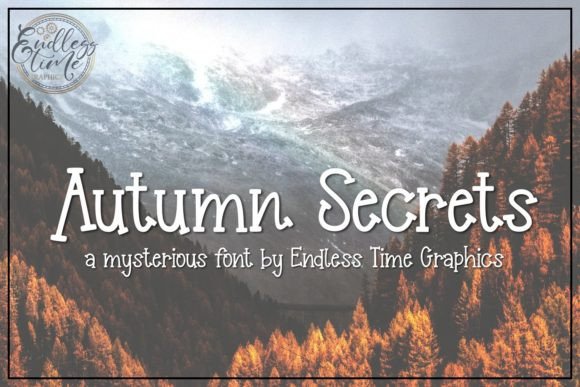
Immerse yourself in the charm and allure of Autumn Secrets Font, a captivating handwritten script that exudes warmth and nostalgia. Inspired by the enchanting beauty of the fall season, this font invites you on a journey of creativity and self-expression. With its playful and slightly mysterious vibe, Autumn Secrets Font adds a touch of whimsy to any project, making it the perfect choice for those seeking a unique and visually appealing font.
Whether you're designing invitations for a Halloween party or creating personalized greeting cards, Autumn Secrets Font will elevate your designs with its distinct character and charm. Its elegant curves and playful strokes evoke a sense of wonder and intrigue, capturing the essence of the season. Unleash your imagination and let Autumn Secrets Font transport you to a world of enchantment and creativity.
With Autumn Secrets Font, you'll have the power to transform ordinary words into captivating expressions. Its versatility extends to a wide range of projects, from social media graphics and website designs to product packaging and branding. Let your creativity flow and explore the endless possibilities that await you with this remarkable font.
So, embrace the magic of Autumn Secrets Font and embark on a journey of artistic discovery. Allow its enchanting allure to captivate your senses and let your imagination soar. Embrace the beauty of handwritten artistry and make a statement with every design you create. Autumn Secrets Font is more than just a font; it's an invitation to unleash your creativity and leave a lasting impression.